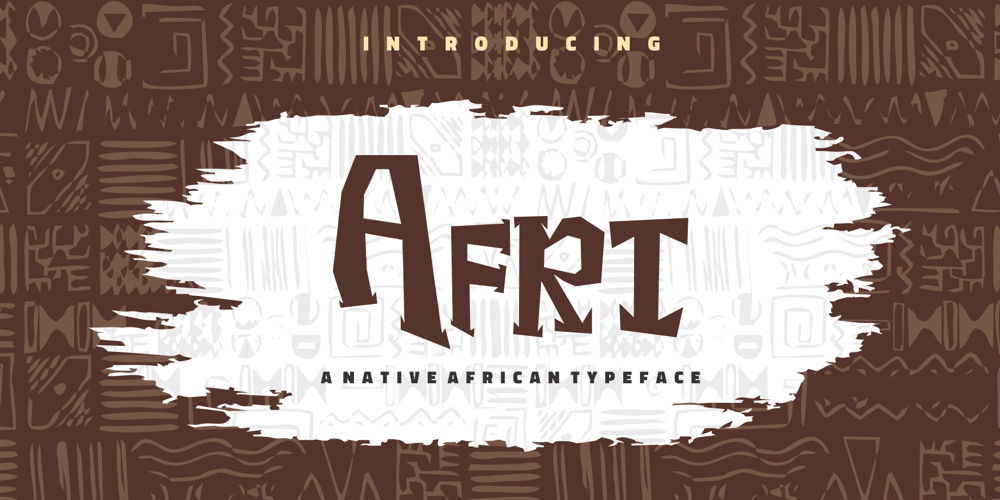
Afri Font Family was designed by David Shopekan and published by Krown Creative Factory. Afri contains 1 styles and family package options. Afri is a funky Native typeface which in a way could be considered as a serif it features edged and freely expressed glyphs. It can be used to create a range of design projects like posters, advertising and marketing flyers and even to printed items. It just requires you to use your imaginative strength and your design projects will look more native and even better pass your message.With this typeface you can create a party poster, movie flyer, advertising and marketing posters, it can also be used on branding items, Native craft design, book covers, music cover arts, or any purpose of your choice to make your designs look African but not too tribal, feel free to play with this typeface.